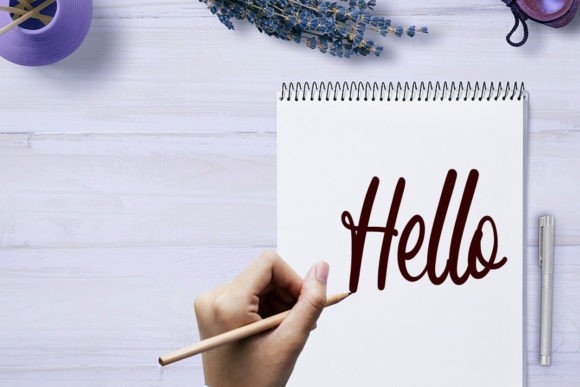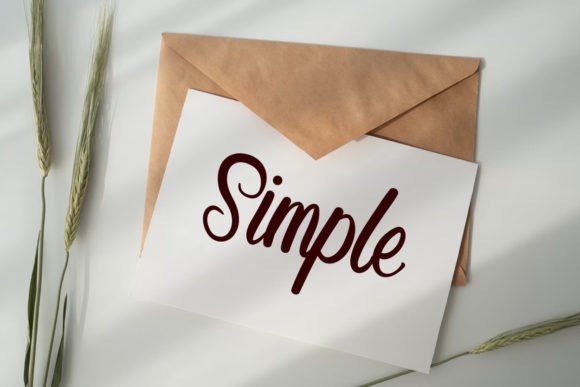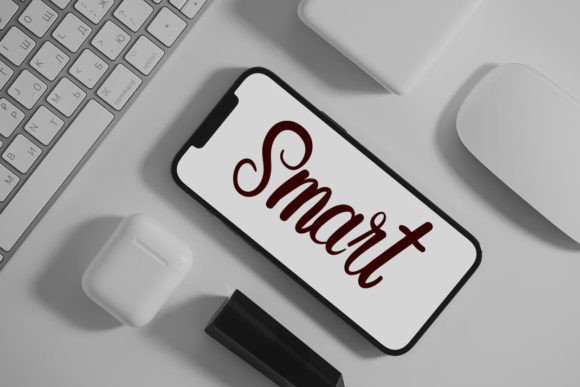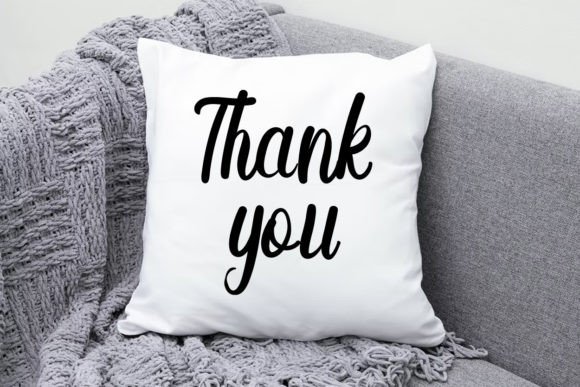
Introduction to Andaria Font
Do you remember that moment when you finally find the perfect font for your design project? The one that makes it stand out and leaves a lasting impression? That’s exactly what I’m about to introduce you to – the beautiful Andaria Font. With its fresh and handwritten style, this font is perfect for a wide range of designs, from YouTube banners and logos to wedding invitations and flyers.
As a designer, you know how valuable it is to have a high-quality design resource like Andaria Font at your disposal. Not only is it free to download, but it also offers a transparent background, making it easy to integrate into any creative project. Whether you’re working on a personal or professional project, Andaria Font is sure to elevate your design and take it to the next level.
Key Features of Andaria Font
- Includes a comprehensive character set, ensuring effective communication and clear typography.
- Designed with a focus on legibility and readability, making it an excellent choice for various design contexts.
Honest Review: Andaria Font
As a designer, I’m always on the lookout for high-quality design resources that can elevate my creative projects. Recently, I stumbled upon the Andaria Font, and I’m excited to share my honest review with you.
What works well: ✨ The Andaria Font is a beautiful, elegant script font that’s perfect for a variety of design projects, from wedding invitations to branding materials. The font is highly customizable, allowing you to adjust the size, color, and style to suit your needs. I also appreciate the transparent background, which makes it easy to layer the font over images or other design elements.
Overall impression: I’m really impressed with the Andaria Font, and I think it’s a great resource for designers. While it may have a few limitations, the benefits far outweigh the drawbacks. I’d definitely recommend it to anyone looking for a high-quality script font for their next creative project.
- Highly customizable font
- Perfect for creative projects, such as wedding invitations and branding materials
Use the Andaria Font with a transparent background to create a clean and modern design. Experiment with different font sizes and styles to add visual interest to your creative project. You can also use the font in combination with other design elements to create a unique and eye-catching design.
The Andaria Font is suitable for a wide range of creative projects, including brochures, business cards, and website headers. You can also use it for social media graphics, presentations, and documents.